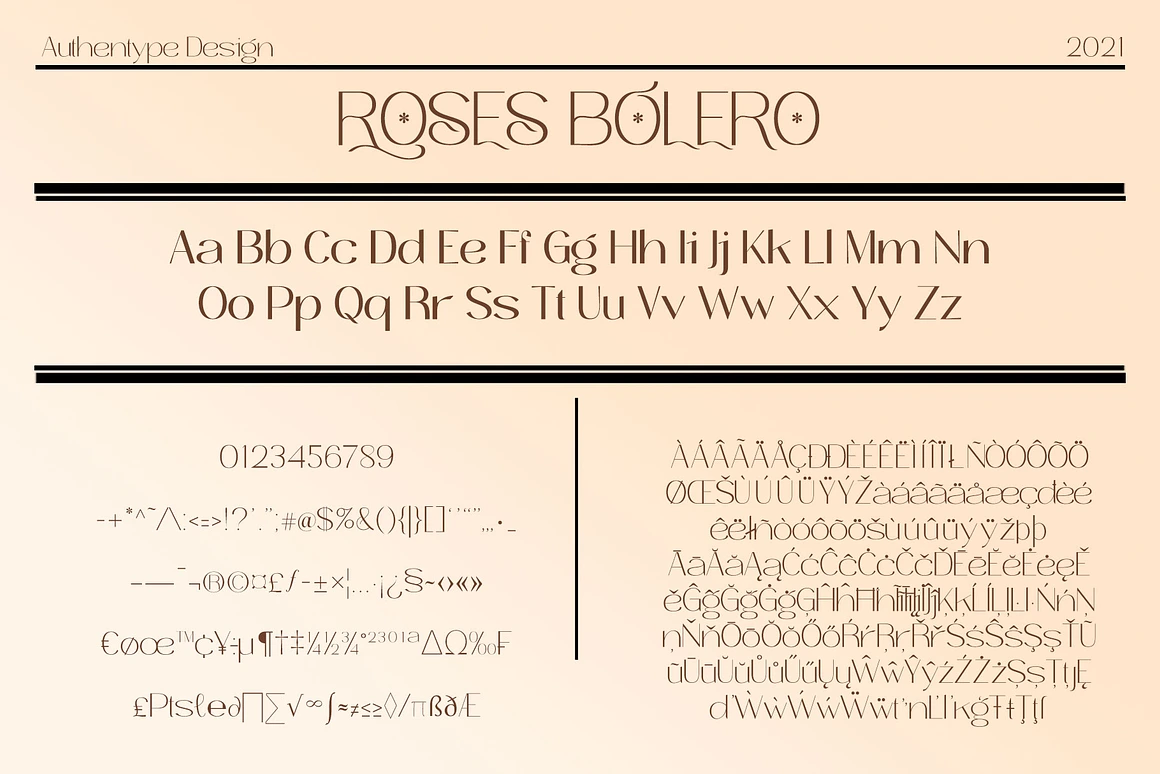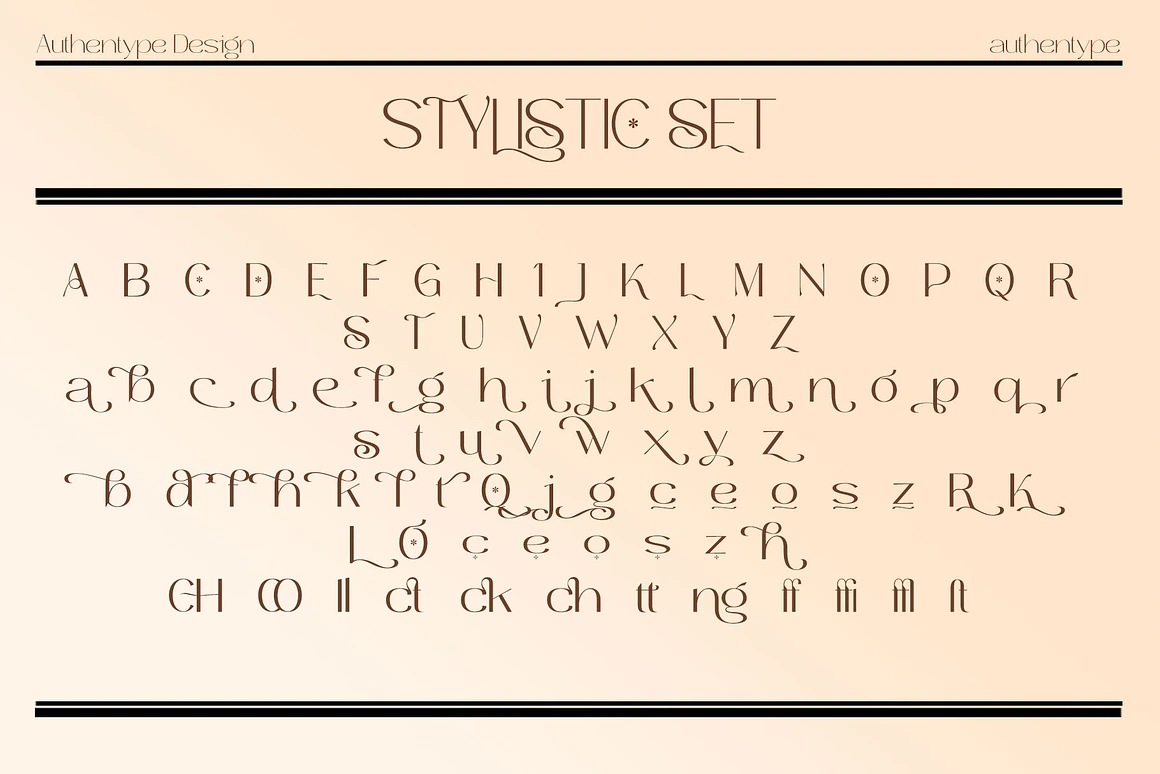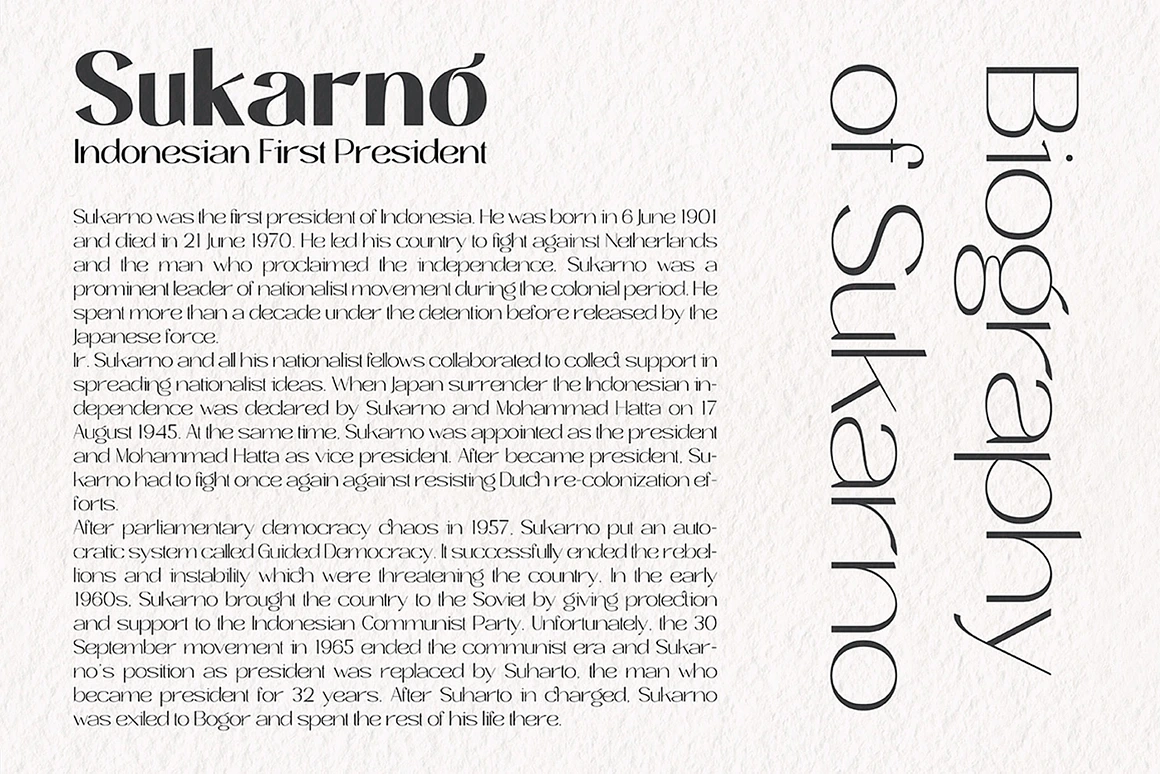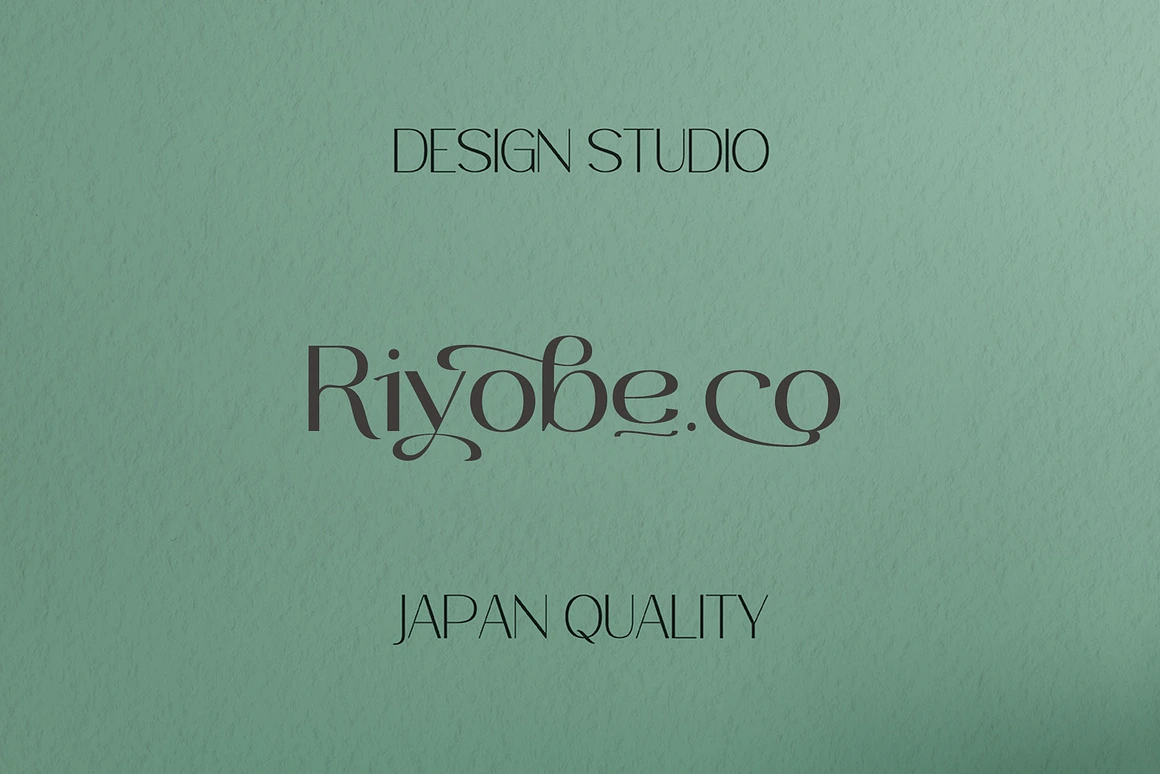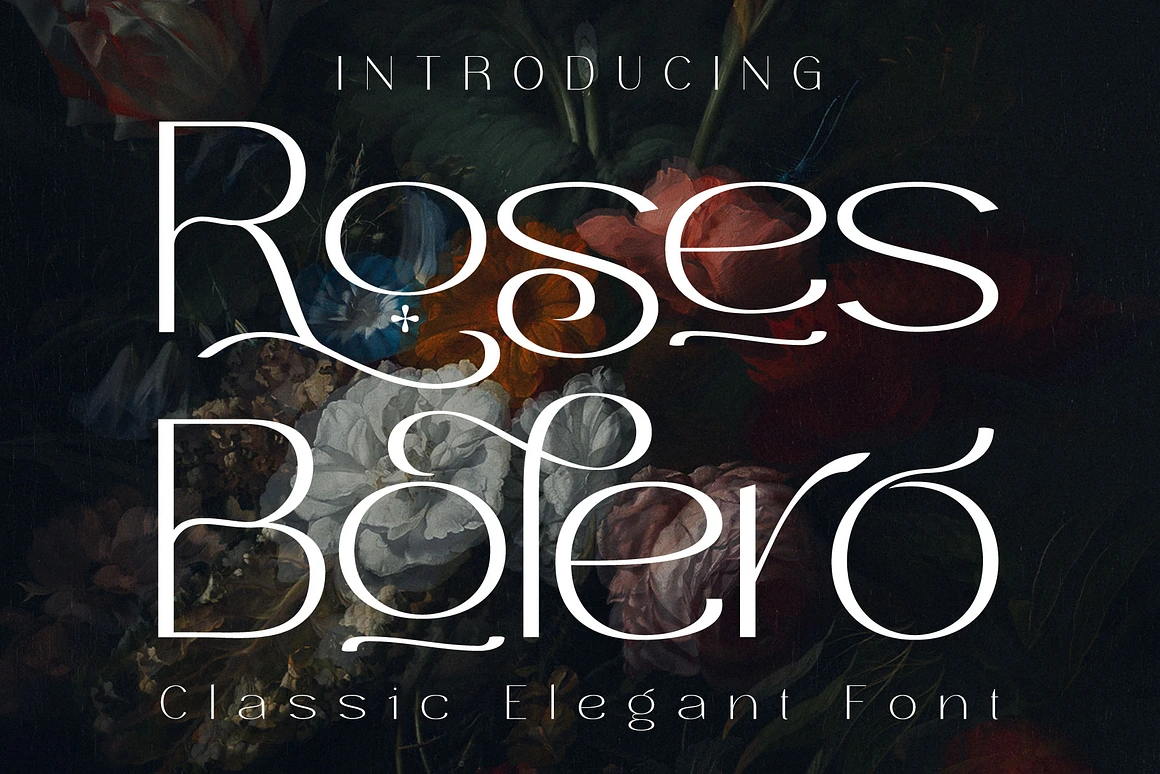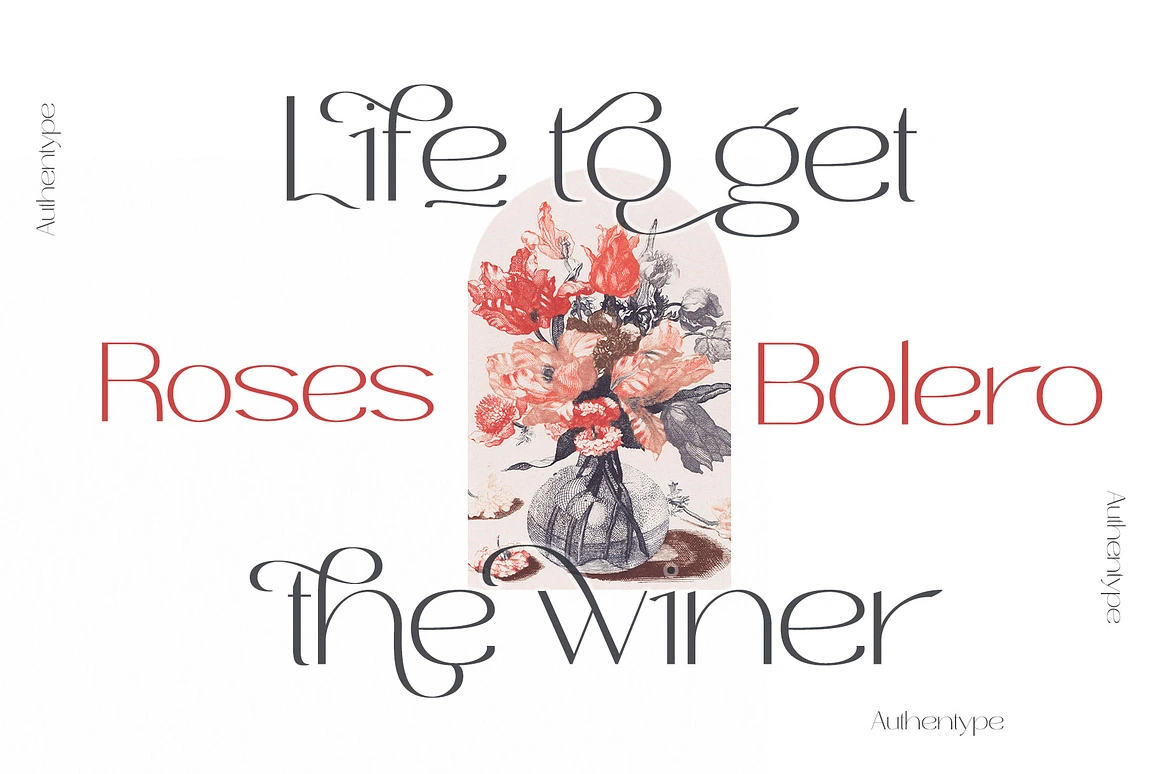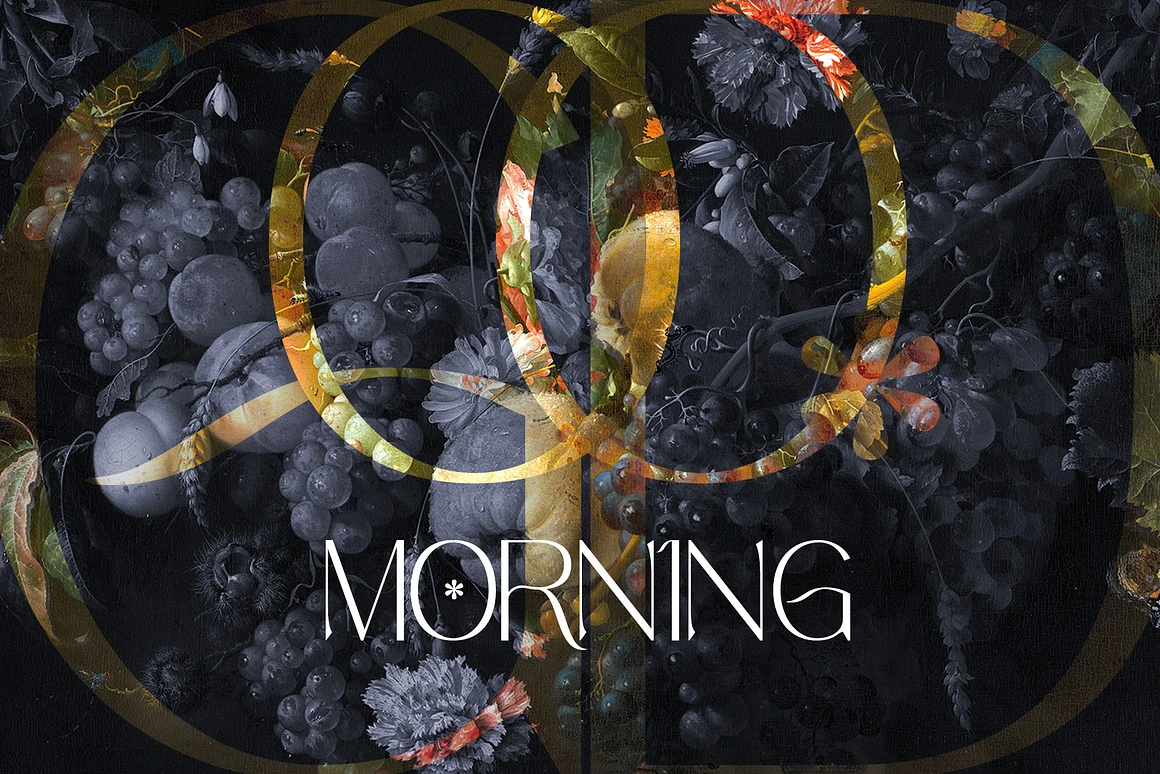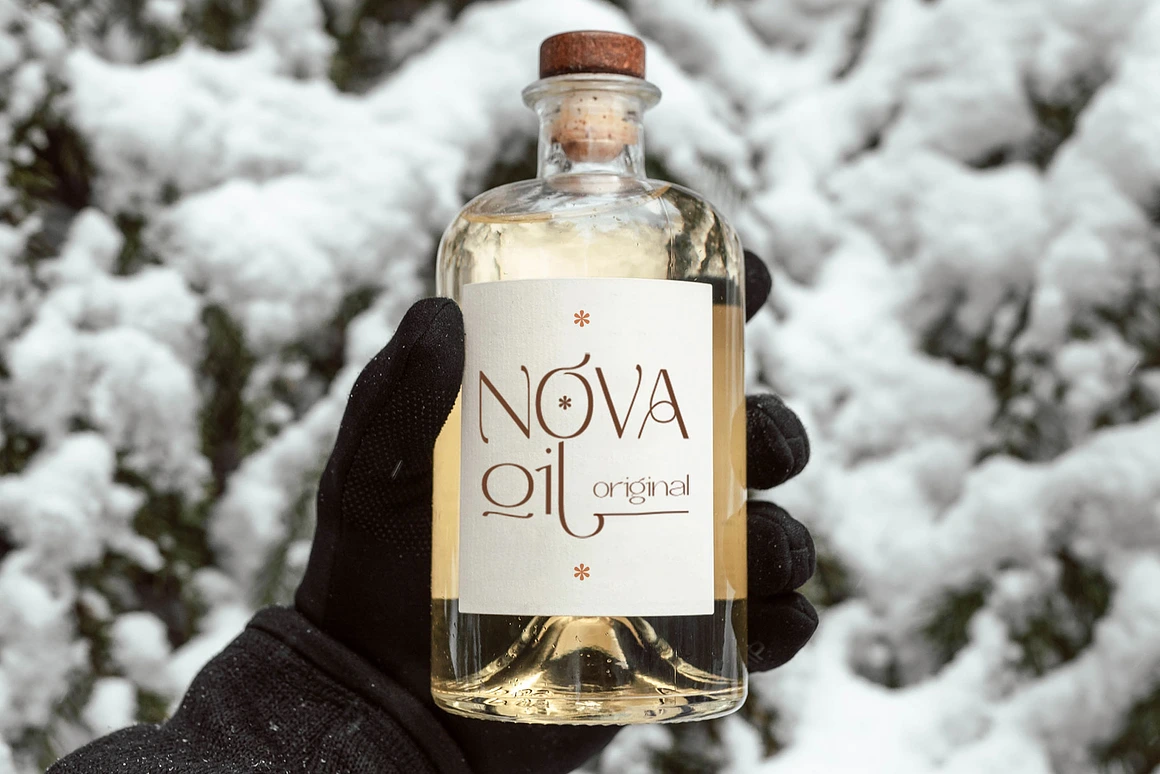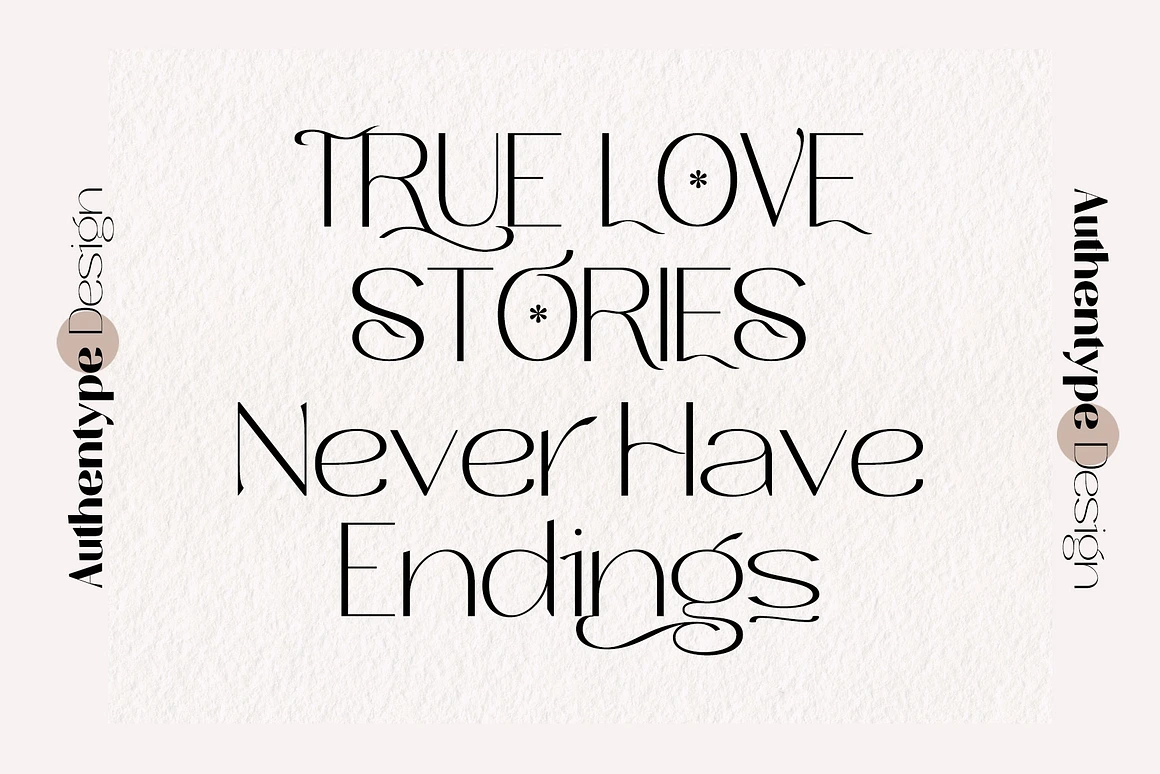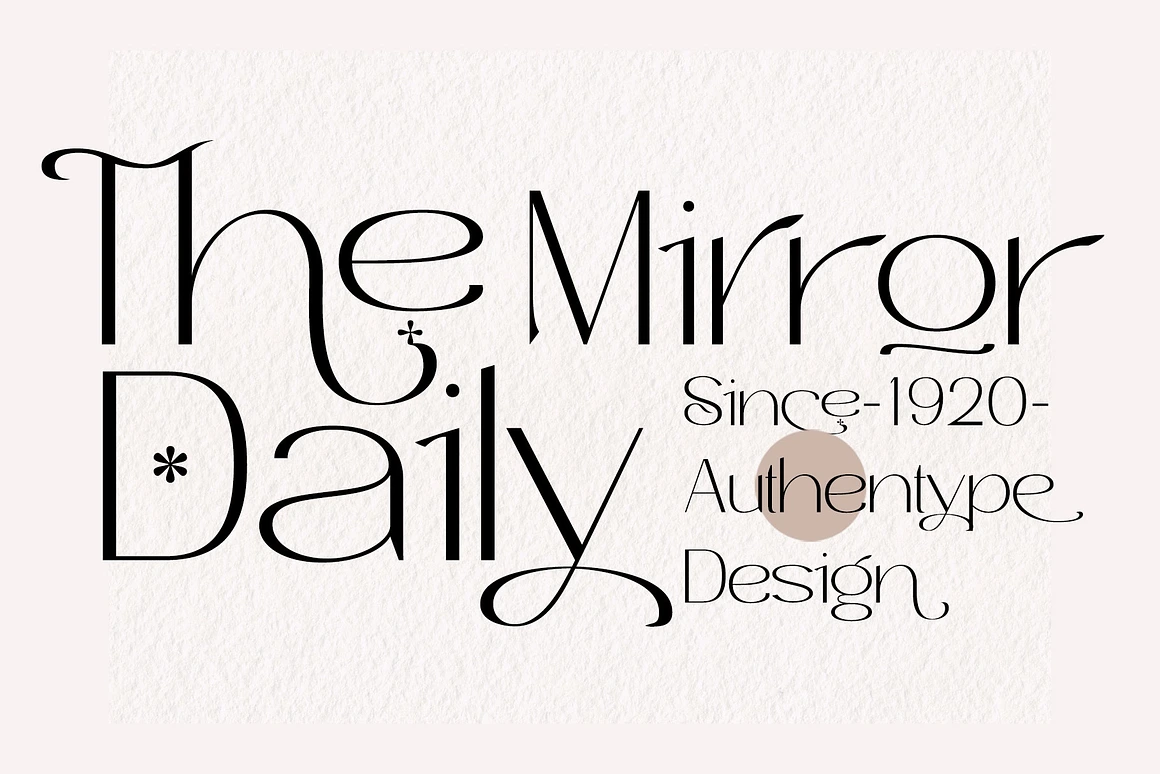
Roses Bolero Elegant Sans Serif
Roses Bolero
Roses Bolero is an elegant sans serif font that masterfully blends classic sophistication with the clean lines of modern minimalism. Every letterform is carefully crafted to exude timeless style, making it ideal for designers who seek a typeface that elevates visual storytelling. One of its standout features is the unique flower-shaped asterisk glyph, adding a subtle decorative element that works beautifully in both contemporary and traditional layouts.
This font is perfect for beauty and fashion branding, luxury packaging, high-end magazines, editorial spreads, wedding stationery, premium logos, and statement posters. Its refined shapes and versatile character set allow it to adapt seamlessly from minimalist designs to richly detailed compositions, ensuring your work always feels polished and professional.
Features of Roses Bolero Elegant Sans Serif
Uppercase & lowercase letters with clean, timeless forms
Numerals, punctuation, and elegant ligatures
Lowercase letters include ending swashes for a graceful finish
Multilingual support: ä ö ü Ä Ö Ü ß ¿ ¡ and more
Perfect For
Beauty & fashion branding
Editorial and magazine layouts
Wedding invitations & stationery
High-end logo design
Elegant poster & packaging design